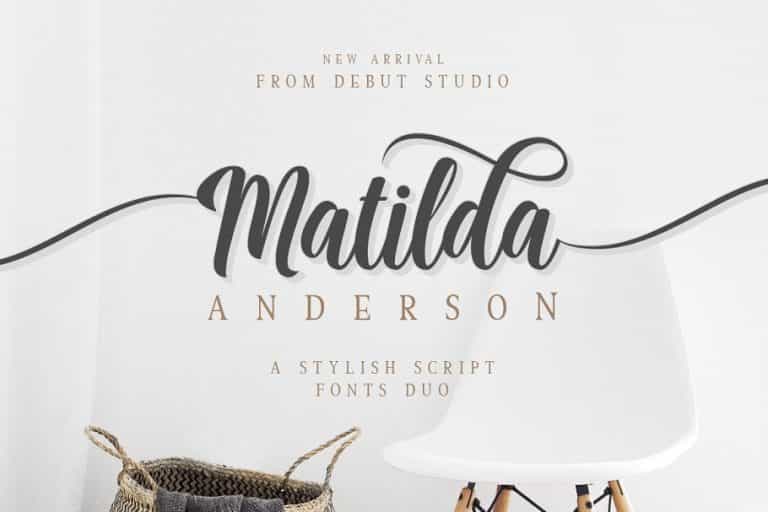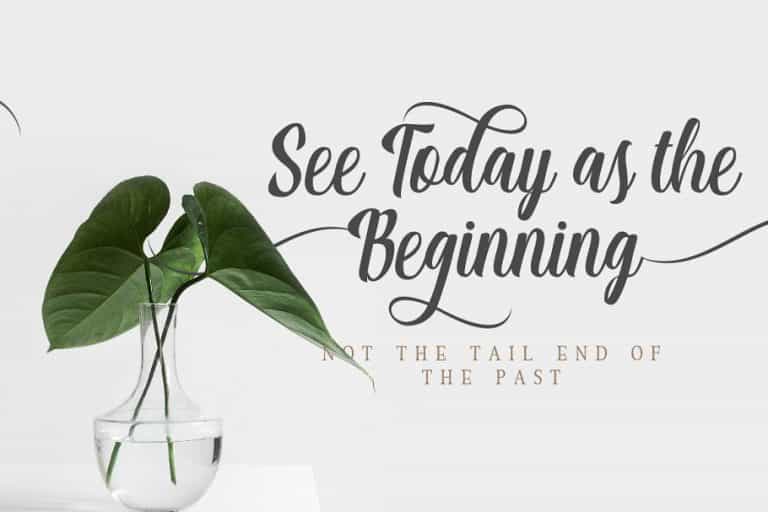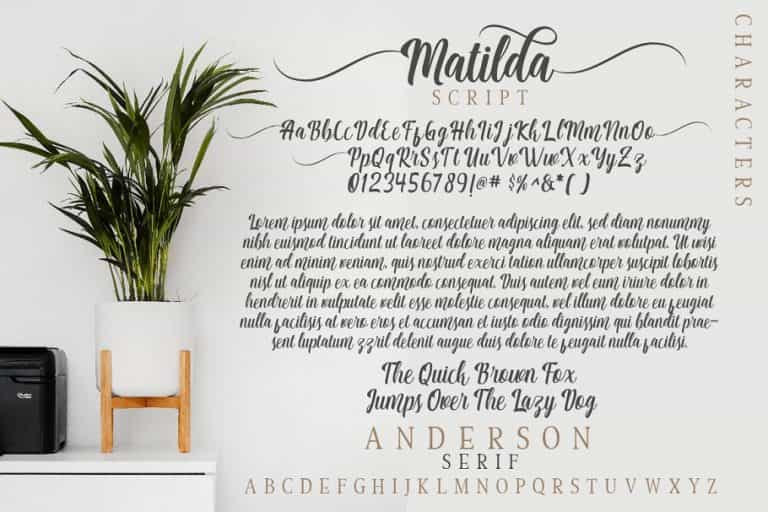
Matilda Font – This is a special mix of traditional and modern font! Simple but strong. Matilda is the solution to all your ideas for now. Matilda is created and published by Debut Studio. Matilda Anderson Font Duo- the modern script that is made with original hand pulls and it is designed in detail. The font which makes all your needs like photography, Signatures, Branding , Logos and more